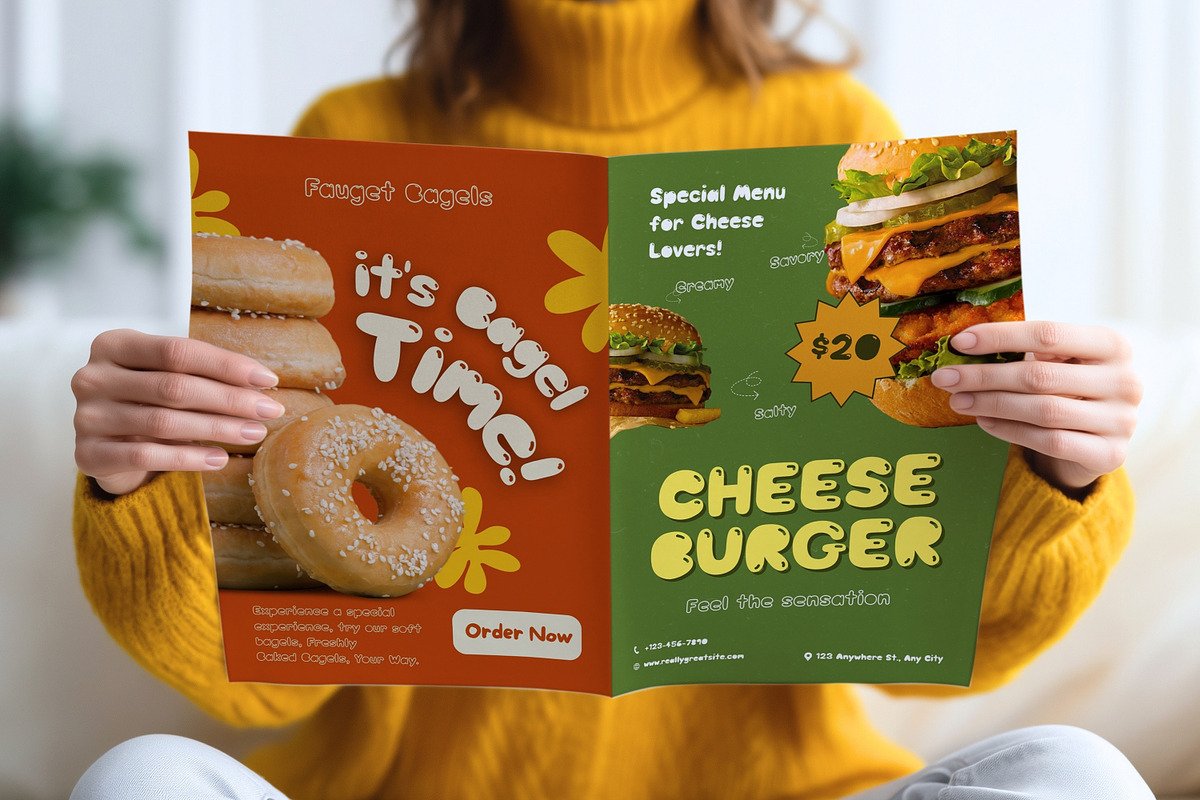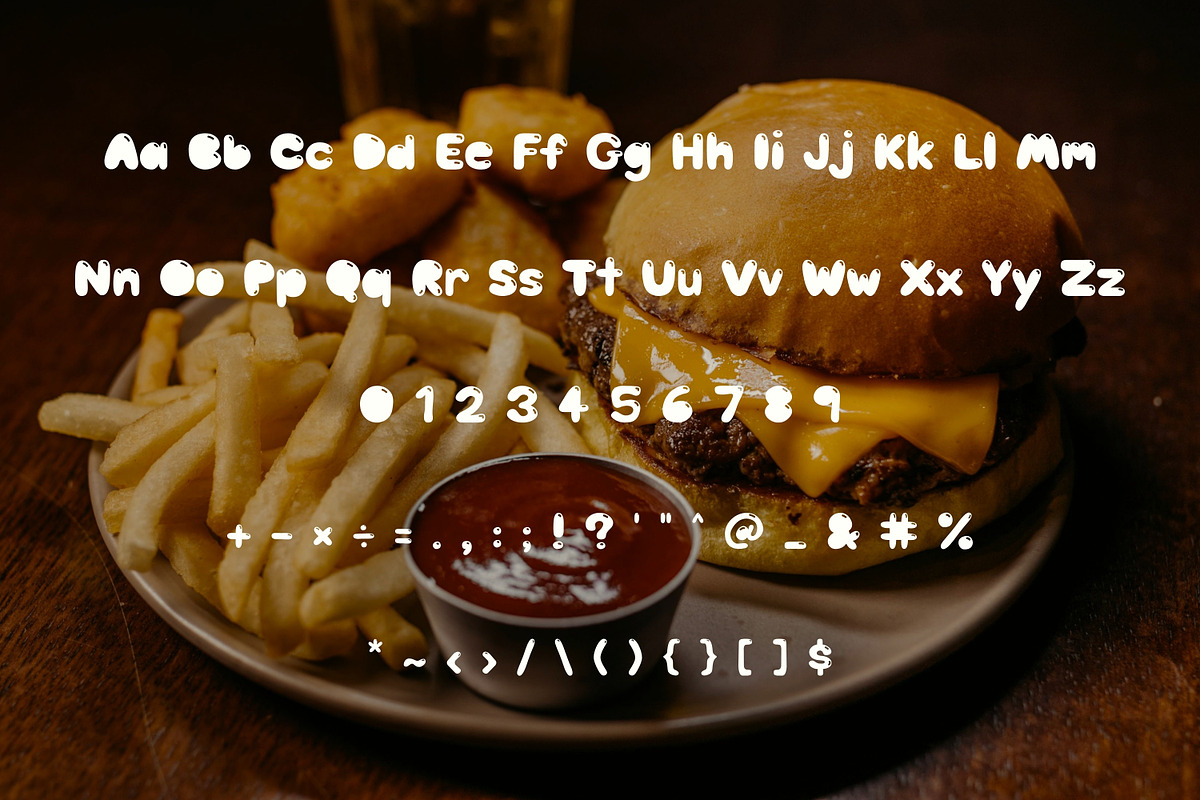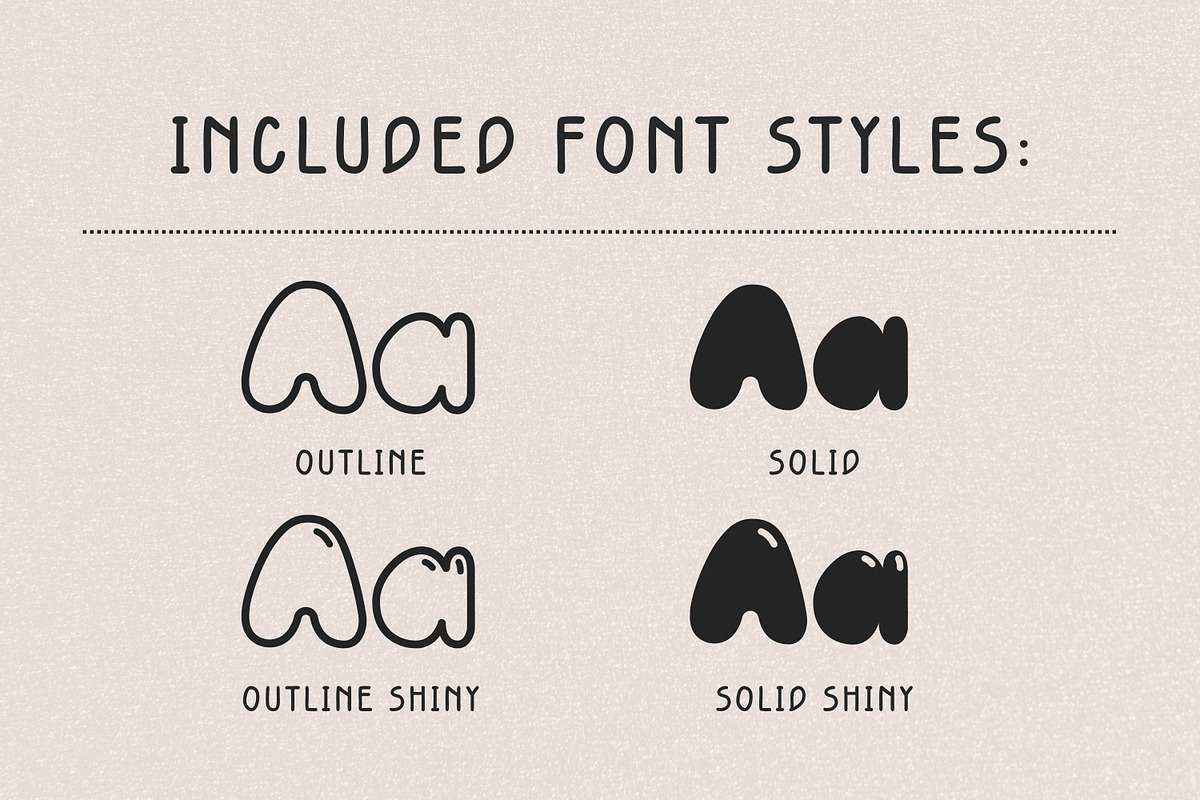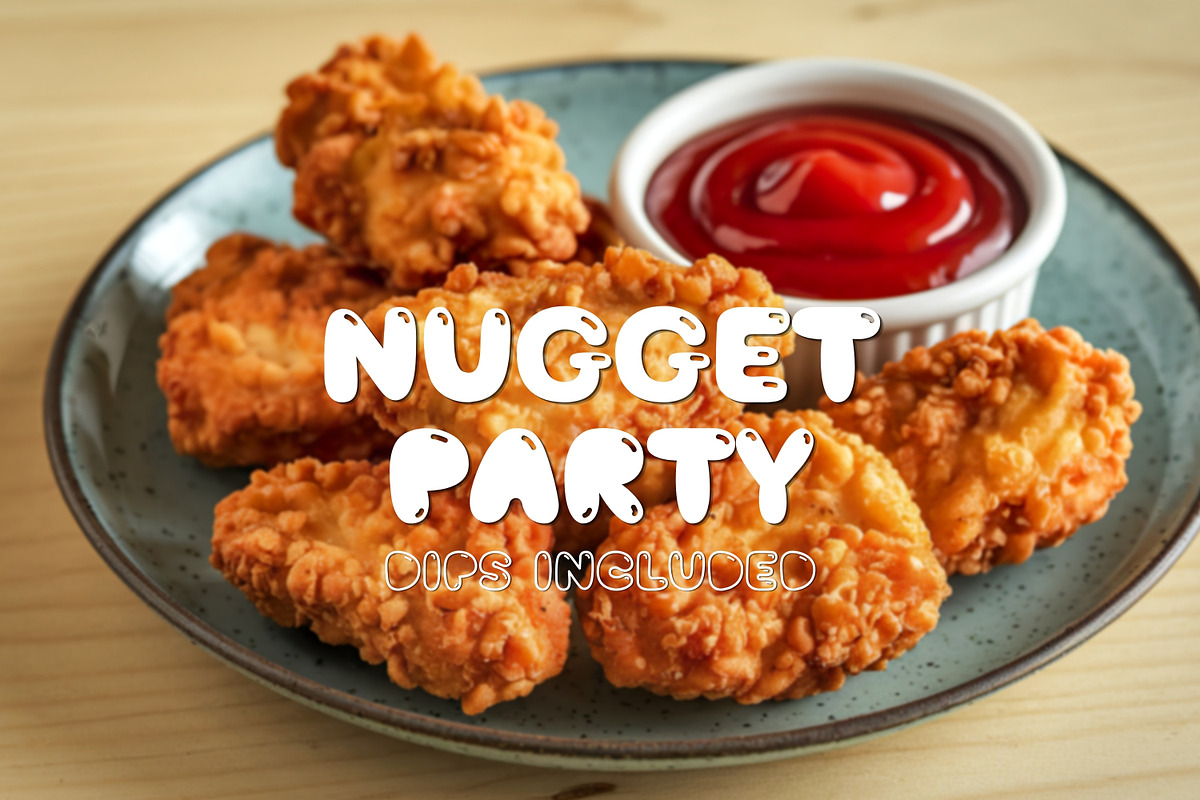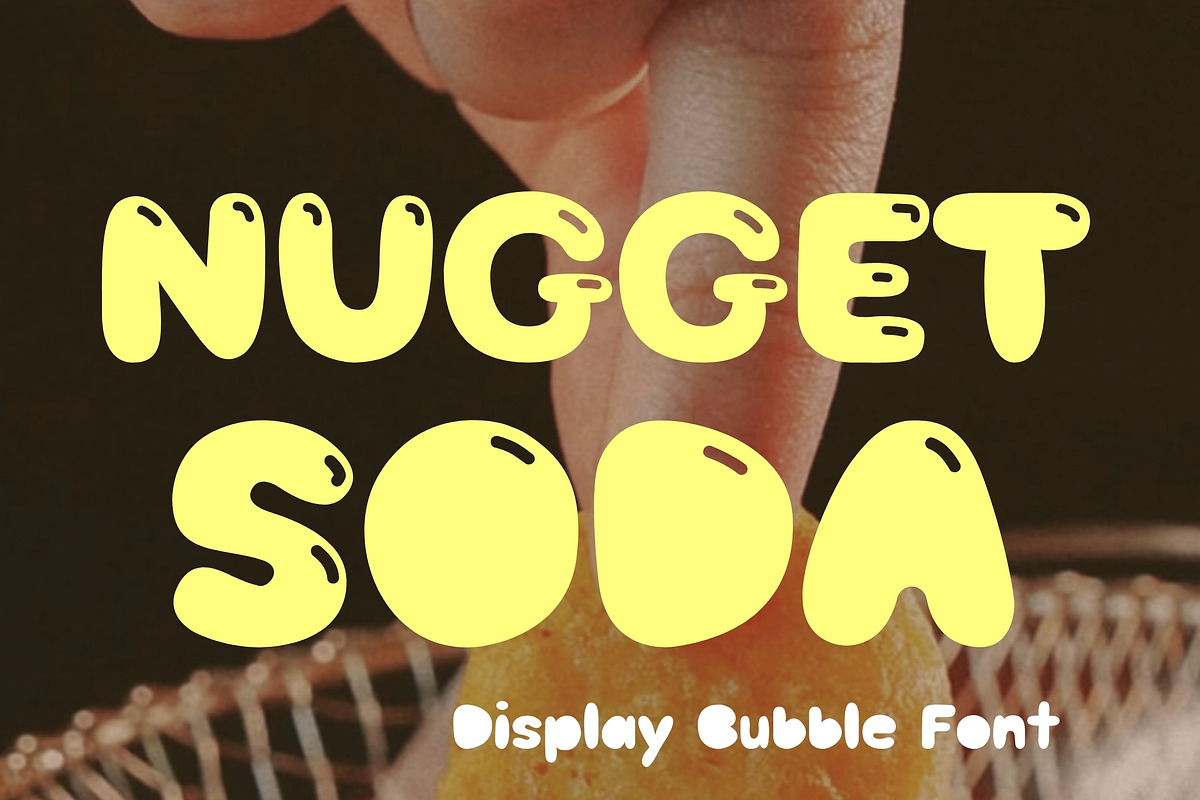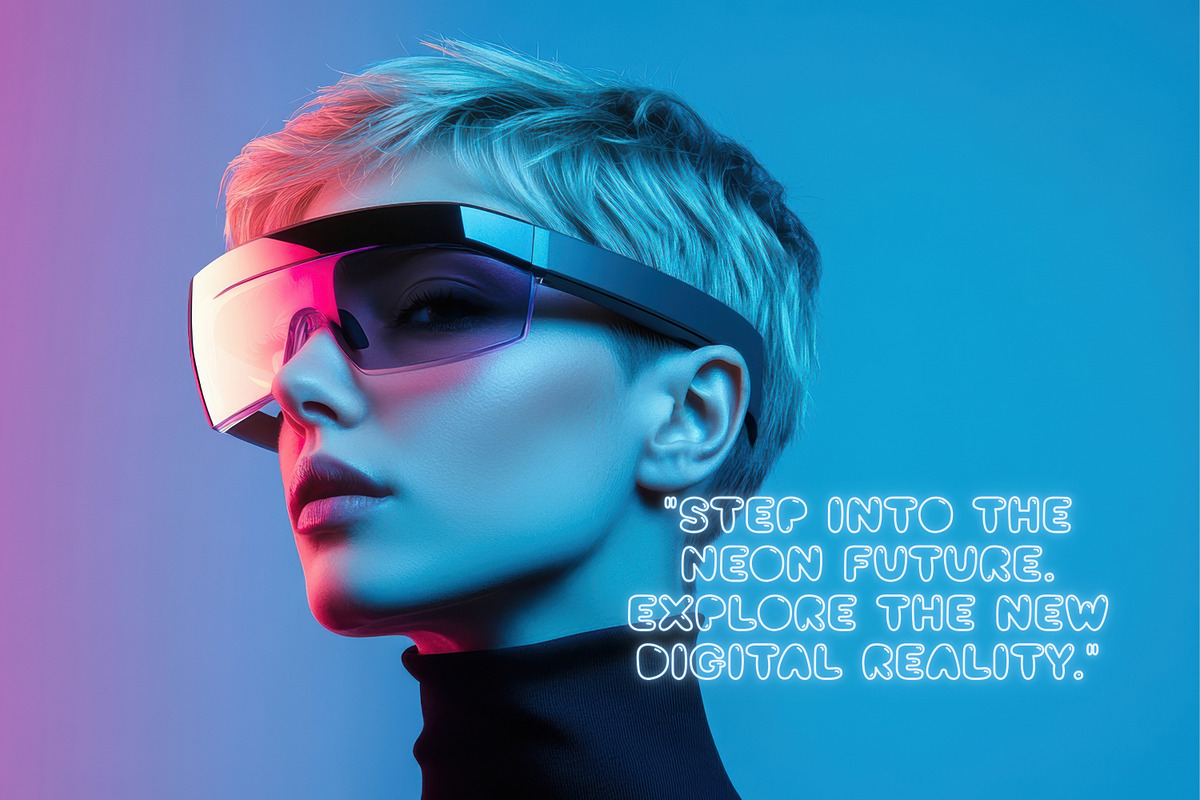
Bubble Display Font - Nugget Soda
✨ Nugget Soda is a playful bubble display font with a soft, rounded, and cheerful personality. Perfect for fun branding, children’s designs, snack packaging, posters, t-shirts, stickers, social media graphics, and playful product packaging.This font features chunky rounded letterforms with a cute hand-drawn feel, making it ideal for creators looking for a bold and friendly typeface with retro charm.